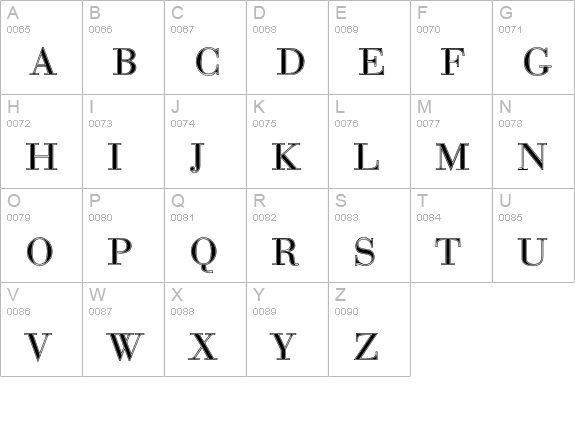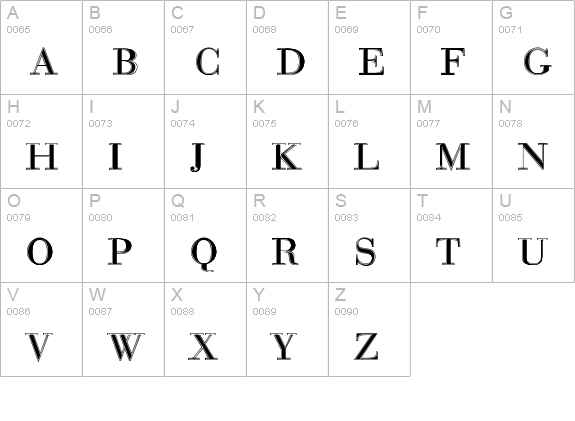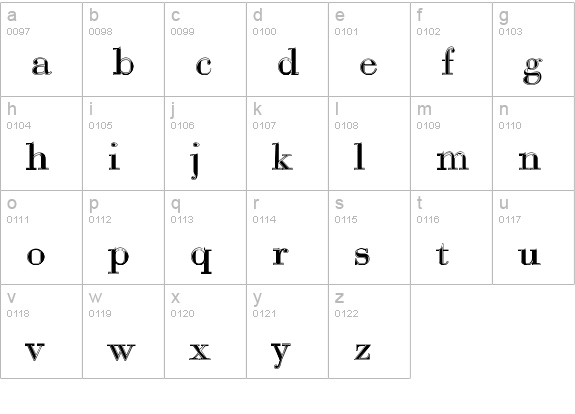
Bauer Bodoni T Regular In1 is the standard, neutral variant in the Bauer typeface family \xE2\x80\x94 well suited to general body text, paragraphs, and standard typographic work.
Bauer Bodoni T Regular In1 font is a timeless classic that exudes elegance and sophistication. Its clean lines and graceful curves make it perfect for a wide range of design projects, from elegant invitations to sleek branding materials. The font's balanced proportions and crisp details give it a polished and professional look that is sure to make a statement. And the best part? Bauer Bodoni T Regular In1 font is available for free download at FontsMarket.com. Whether you're a seasoned designer looking to add a versatile font to your collection or a newcomer in need of a reliable typeface, Bauer Bodoni T Regular In1 is the perfect choice. Download it today and elevate your designs with this exquisite font.